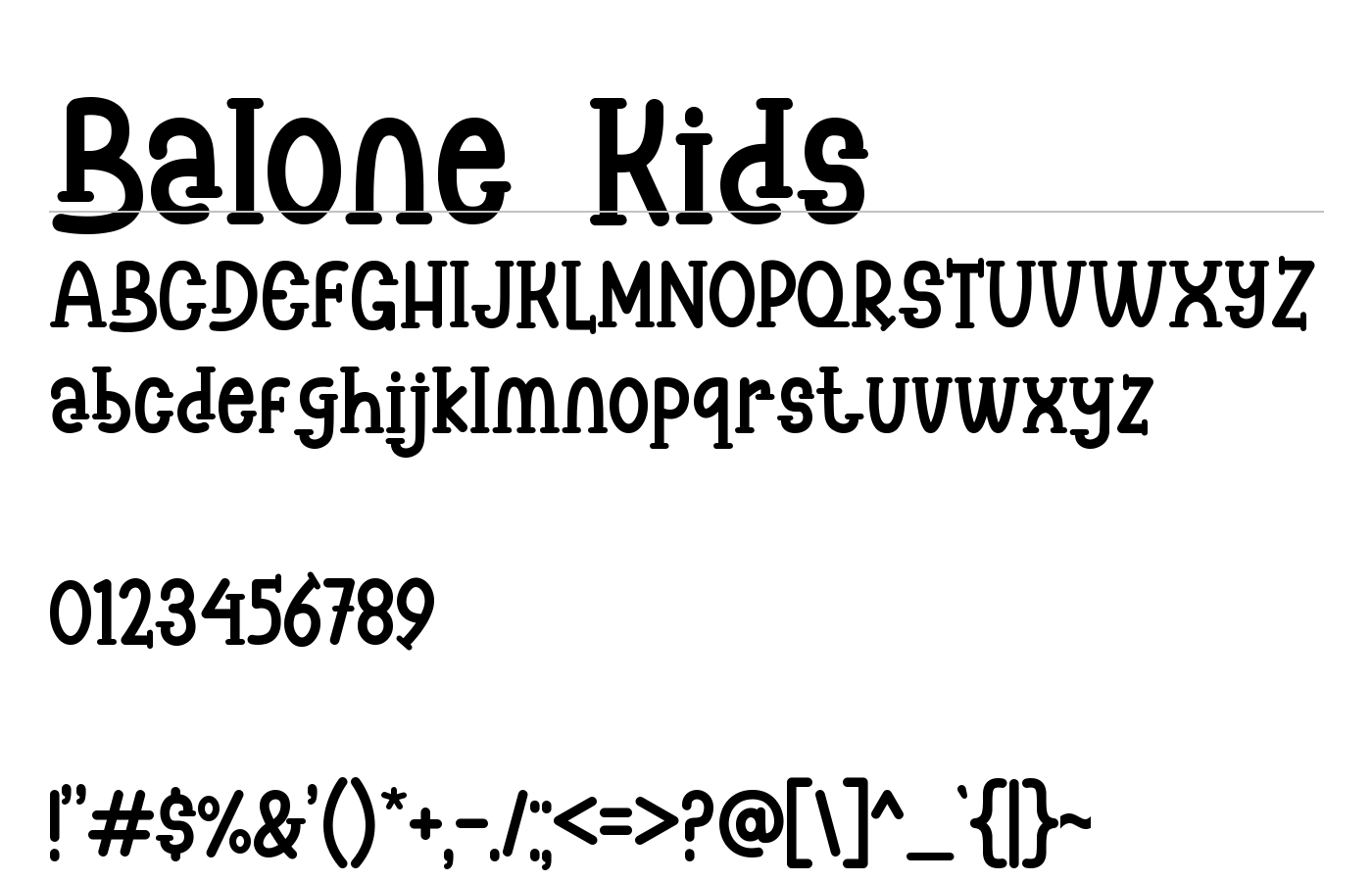
Balone Kids is a playful, rounded slab serif font with a friendly, whimsical character ideal for children’s designs. It features thick, consistent strokes with subtle serifs, slightly condensed letterforms, and unique quirky details that add charm and personality. This font works best for kid-focused branding, posters, and fun headlines where a lively yet readable style is desired.
Balone Kids Font
About Balone Kids Font